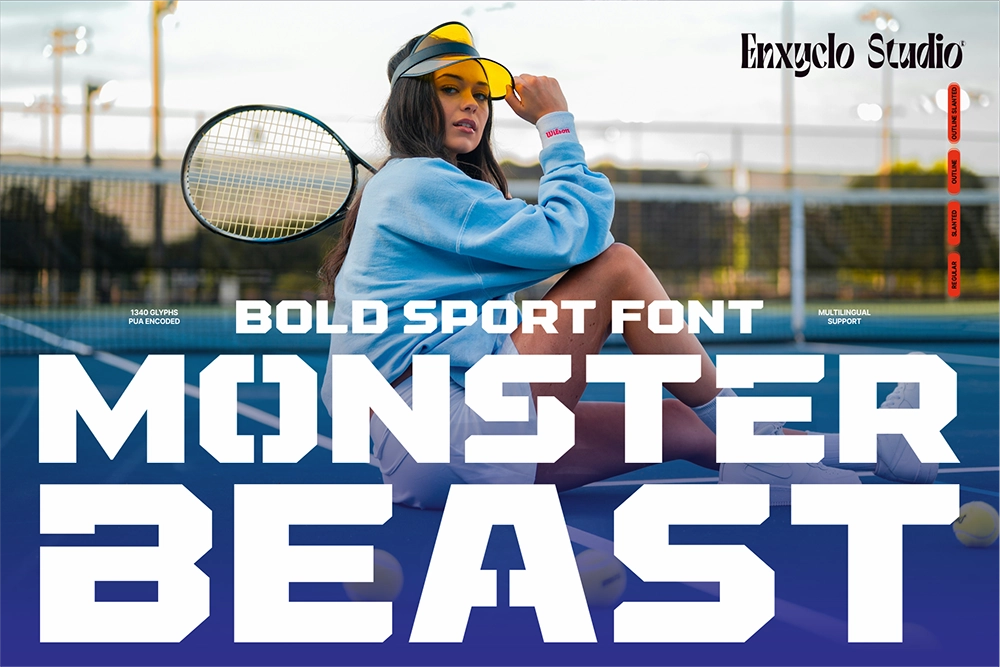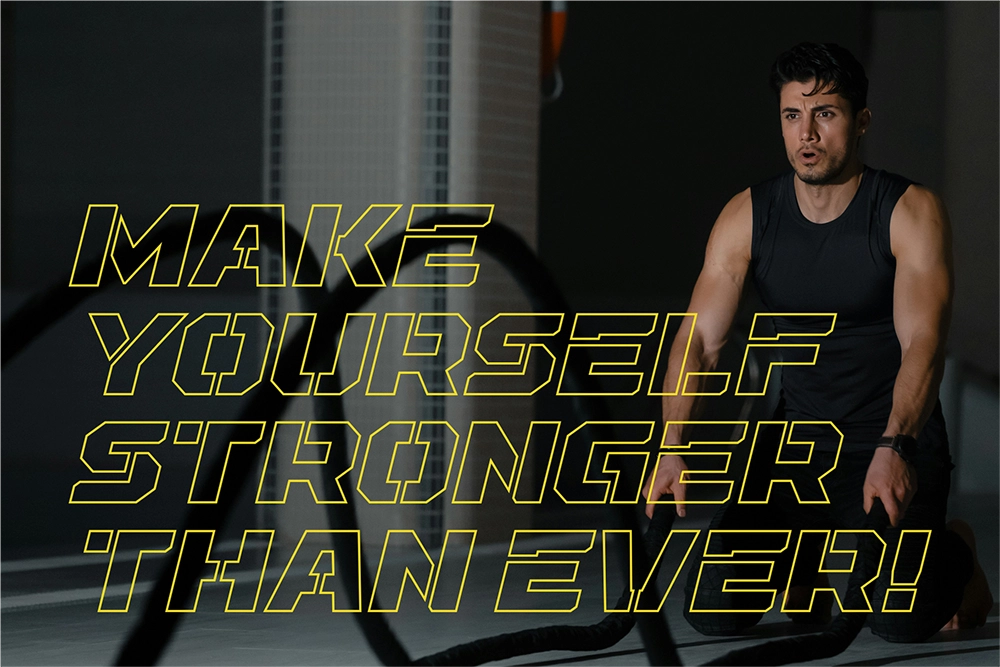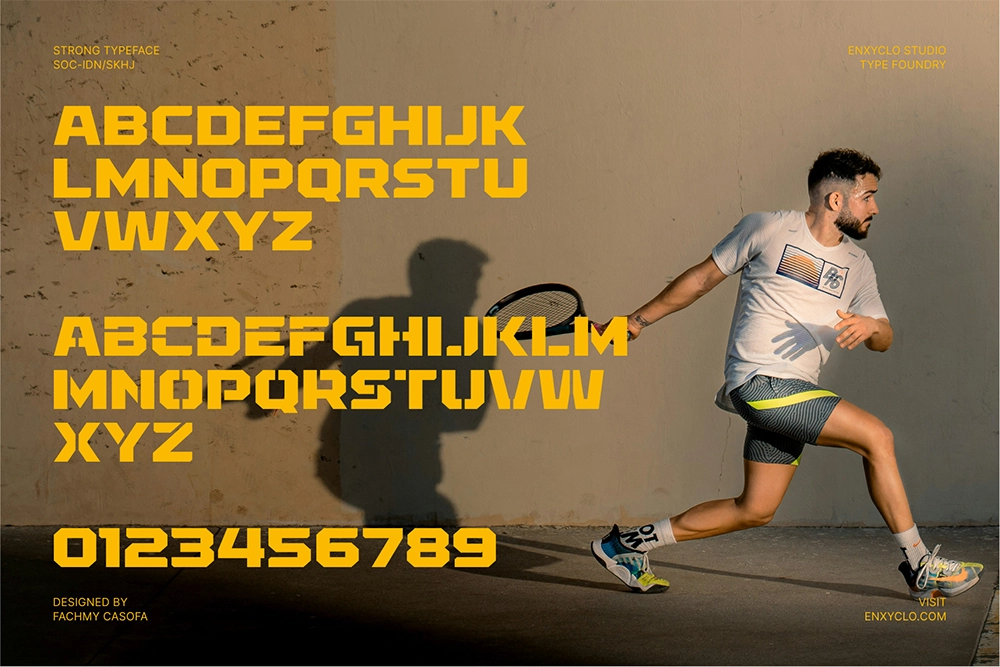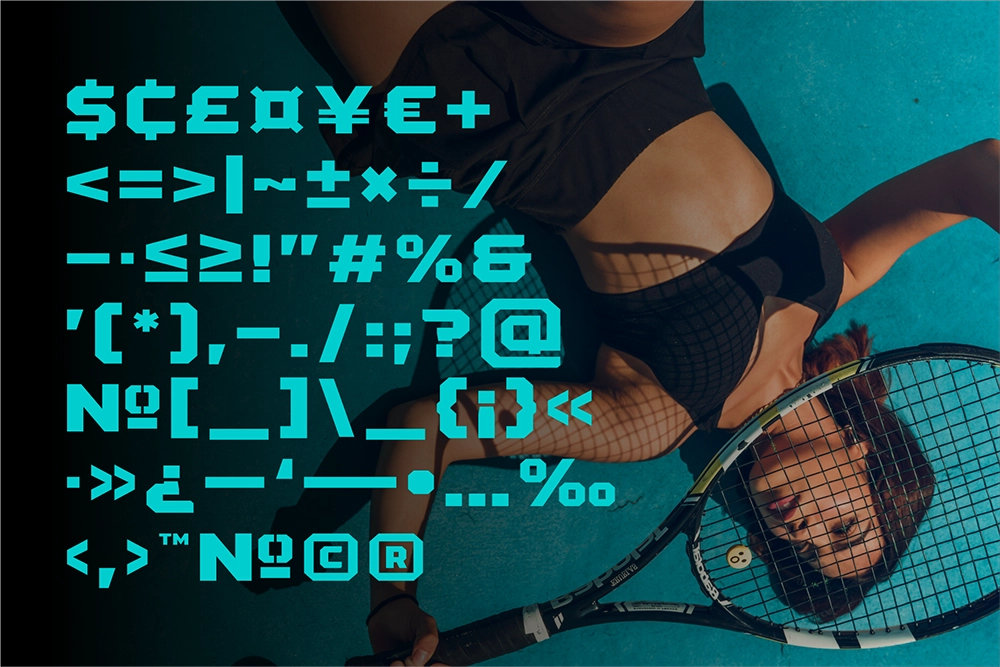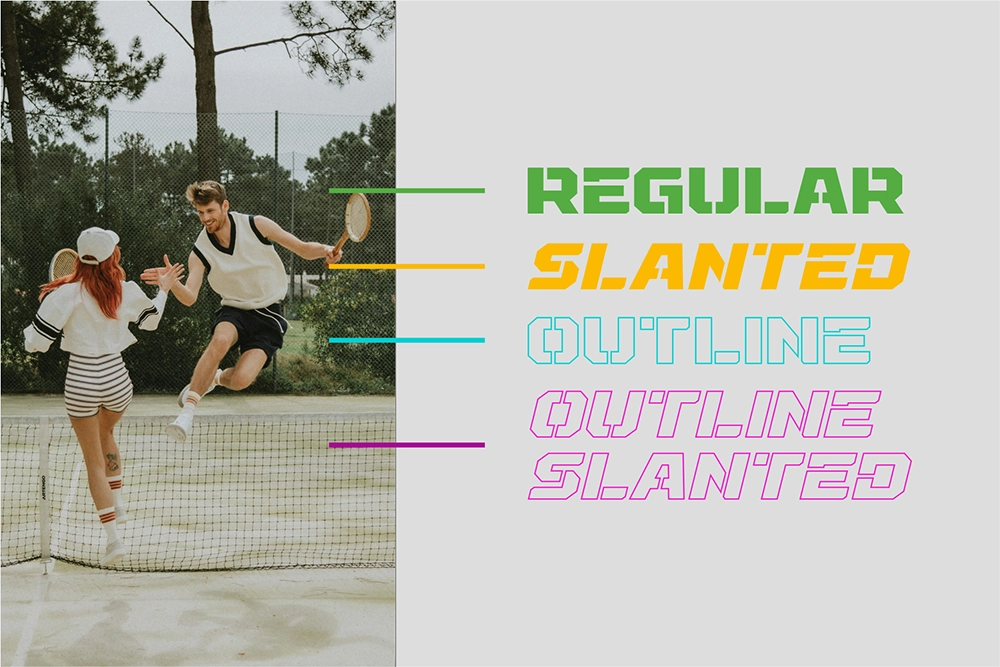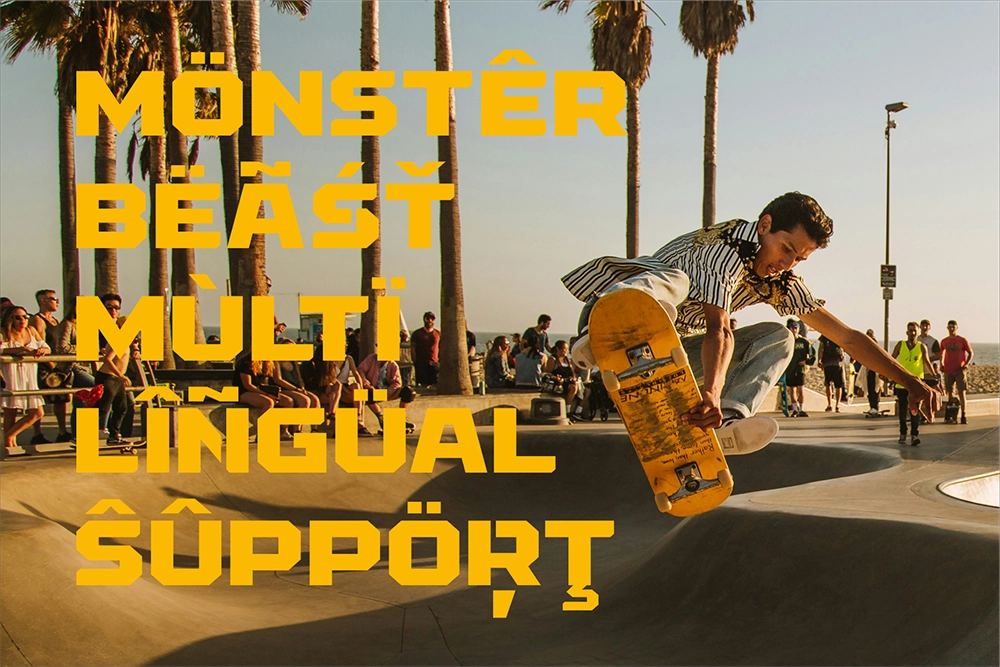
Monster Beast - Futuristic Sport Display Font
Monster Beast – Futuristic Sport Display Font is a bold and energetic display typeface designed for modern sports, fitness, and high-impact branding. Built with strong geometric shapes and futuristic details, this font delivers a powerful visual presence that instantly captures attention. Its dynamic structure reflects speed, strength, and athletic performance, making it perfect for projects that demand bold and confident typography.
Whether used for gym branding, esports graphics, posters, apparel, or digital headlines, Monster Beast brings a sharp, modern sport aesthetic to every layout. The combination of solid and outline styles allows designers to create striking visual hierarchies, energetic compositions, and powerful branding systems across print and digital media.
- 4 Styles: Regular, Slanted, Outline, Outline Slanted
- 335 Glyphs per Style (Total: 1340 Glyphs)
- Uppercase & Lowercase Characters
- Numerals, Punctuation & Symbols